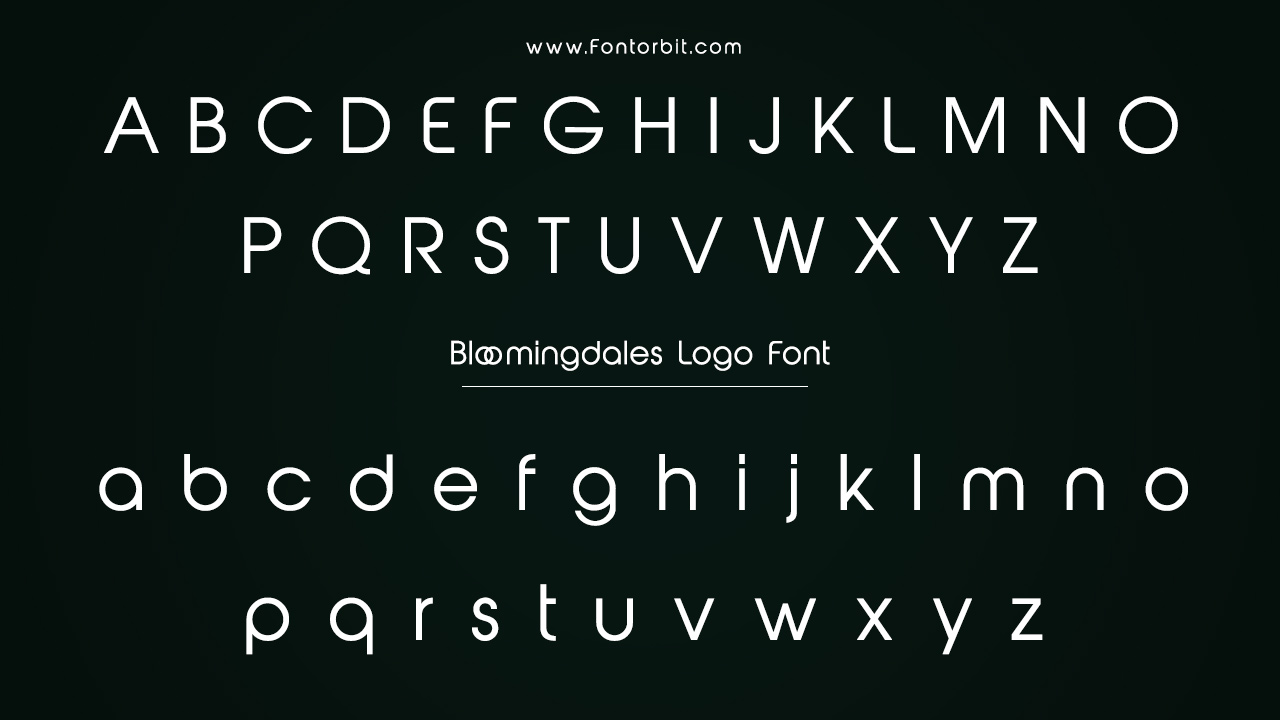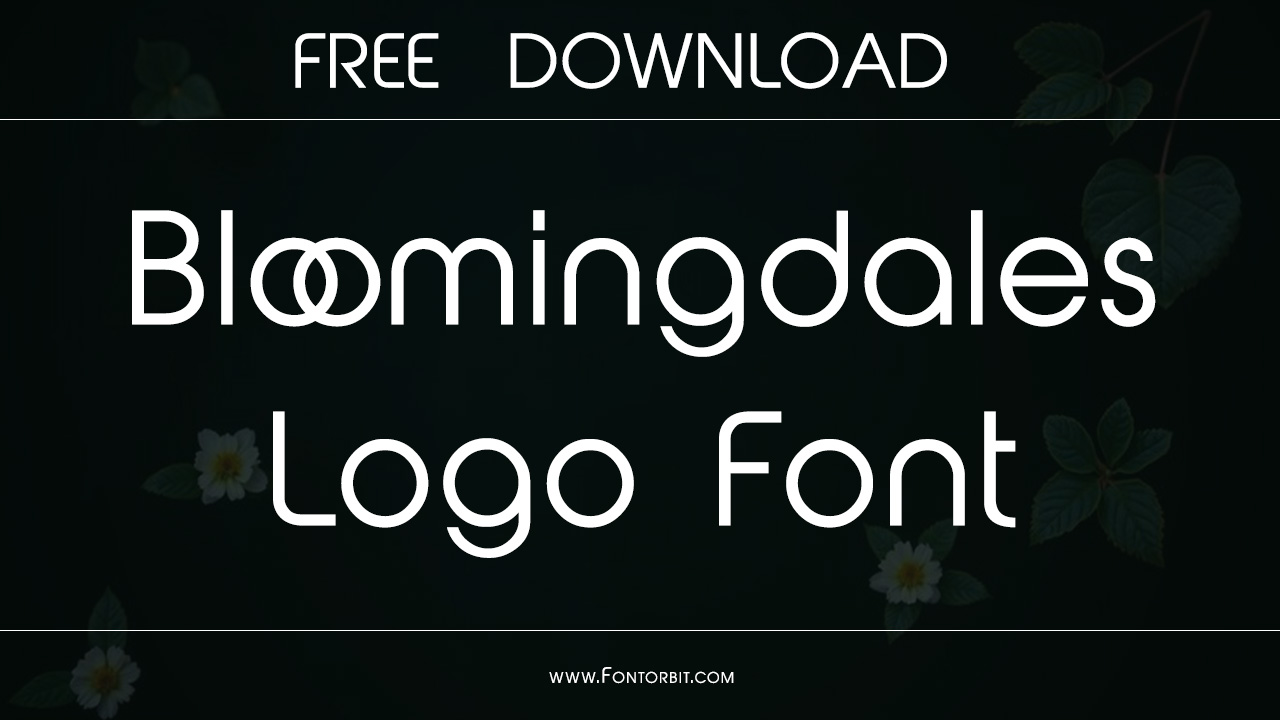
Introducing the Bloomingdales Logo Font, a stylish and modern typeface designed by Mr. Kai Buskirk. This chic font belongs to the Sans-Serif typeface family and was created for the iconic logo of the American luxury department store, Bloomingdale’s. Available in OTF and TTF formats, this font has gained popularity among designers for its clean and sophisticated aesthetics.
Bloomingdales Logo Font
Bloomingdales Logo Font Family Includes
The Bloomingdales Logo Font family consists of the following types:
Bloomingdales-Logo Regular
This family provides designers with a versatile option for various creative projects, ensuring the font’s elegance and clarity shine through.
Notable Uses of Bloomingdales Logo Font
The Bloomingdales Logo Font is often used in various creative settings, including:
- Templates
- Brochures
- Comic book covers
- Ebook covers
- T-shirt designs
- Wedding invitations
- Home décor items
- Advertisements
- YouTube thumbnails
The Bloomingdales Logo Font is a versatile and stylish typeface, making it suitable for a wide range of applications. Here are some specific uses where this font shines:
- Branding and Logos
- Marketing Materials Website Design
- E-commerce Platforms
- Print Media
- Event Materials
- Merchandise Design
- Presentations
- Ebook and Book Covers
1.What Is The Font Type?
It belongs to the Sans-Serif typeface family.